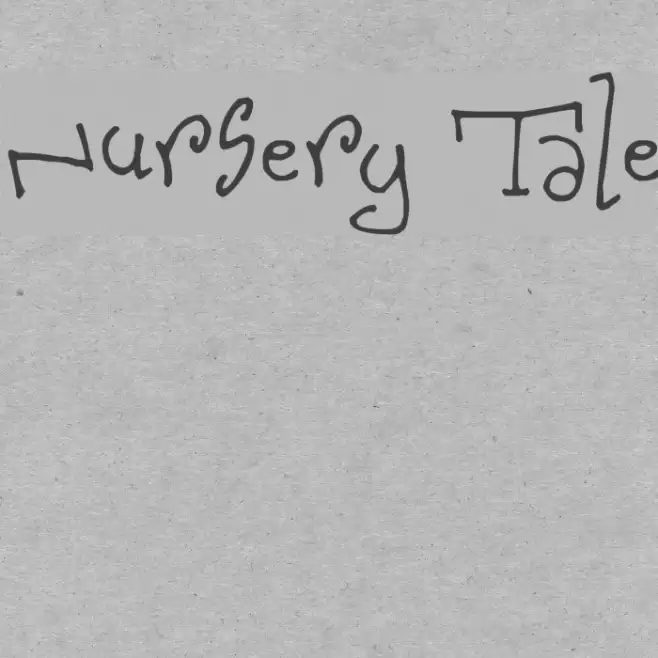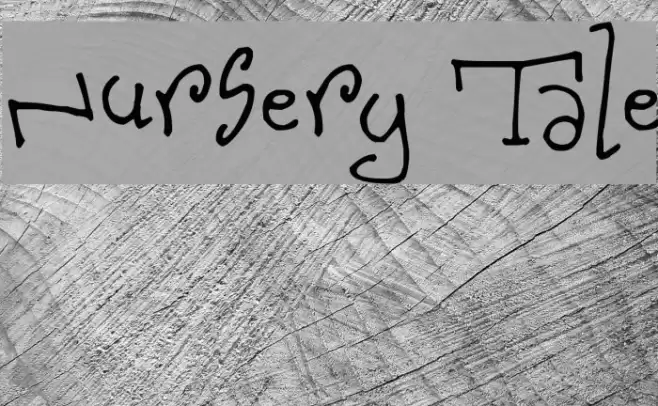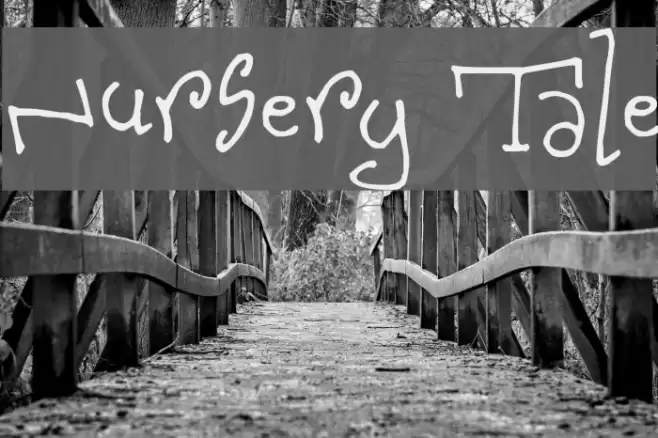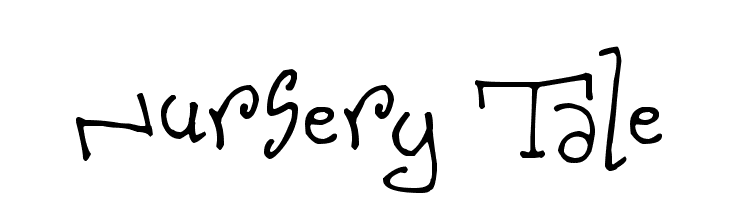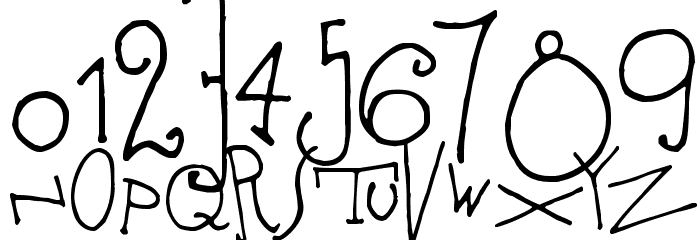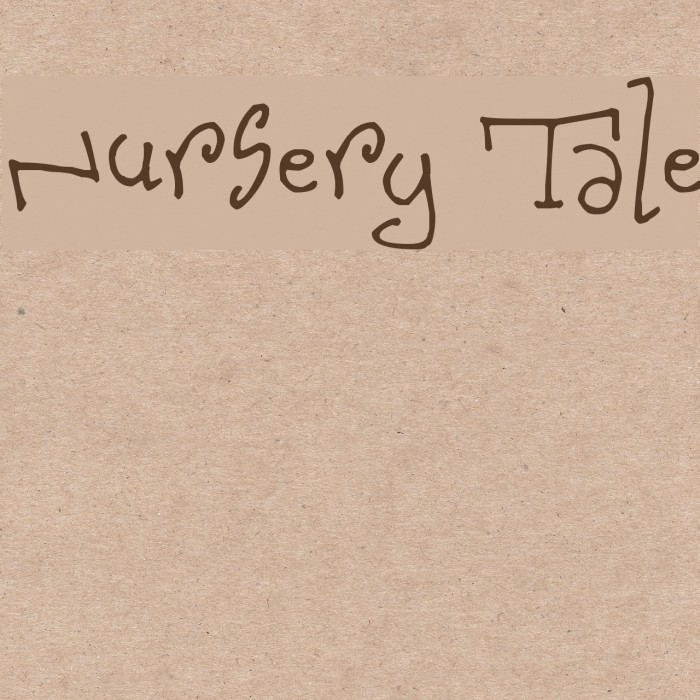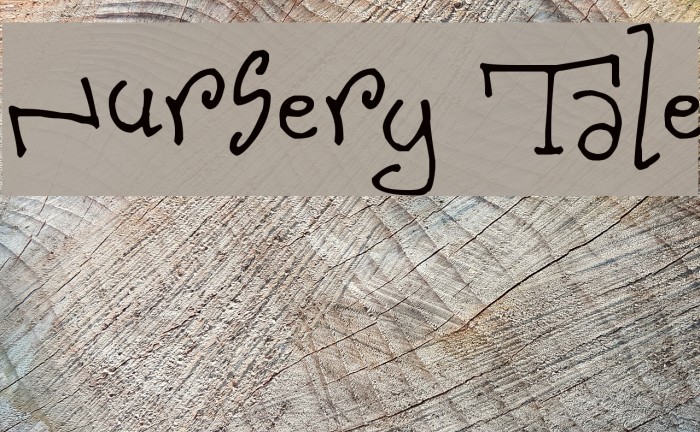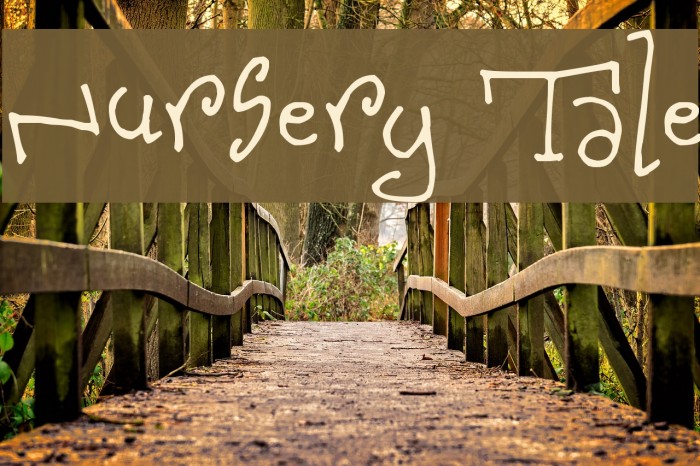
Nursery Tale Font
Nursery Tale Description
This font exudes a whimsical and playful charm, reminiscent of children's storybooks and fairy tales. The characters are uniquely crafted with irregular strokes and varying heights, giving it a hand-drawn, organic feel. The uppercase letters are tall and slightly uneven, while the lowercase letters maintain a consistent yet quirky style. Numbers and special characters follow the same playful aesthetic, adding to the font's overall cohesive look. The font's irregularities and distinctive style make it perfect for projects that require a touch of creativity and imagination.
A whimsical, hand-drawn font with a playful, storybook aesthetic from Uncategorized fonts.
- Proposed Projects: Ideal for children's books, playful branding, whimsical invitations, and creative posters.
- Use Case: Headlines, Logos, Creative projects